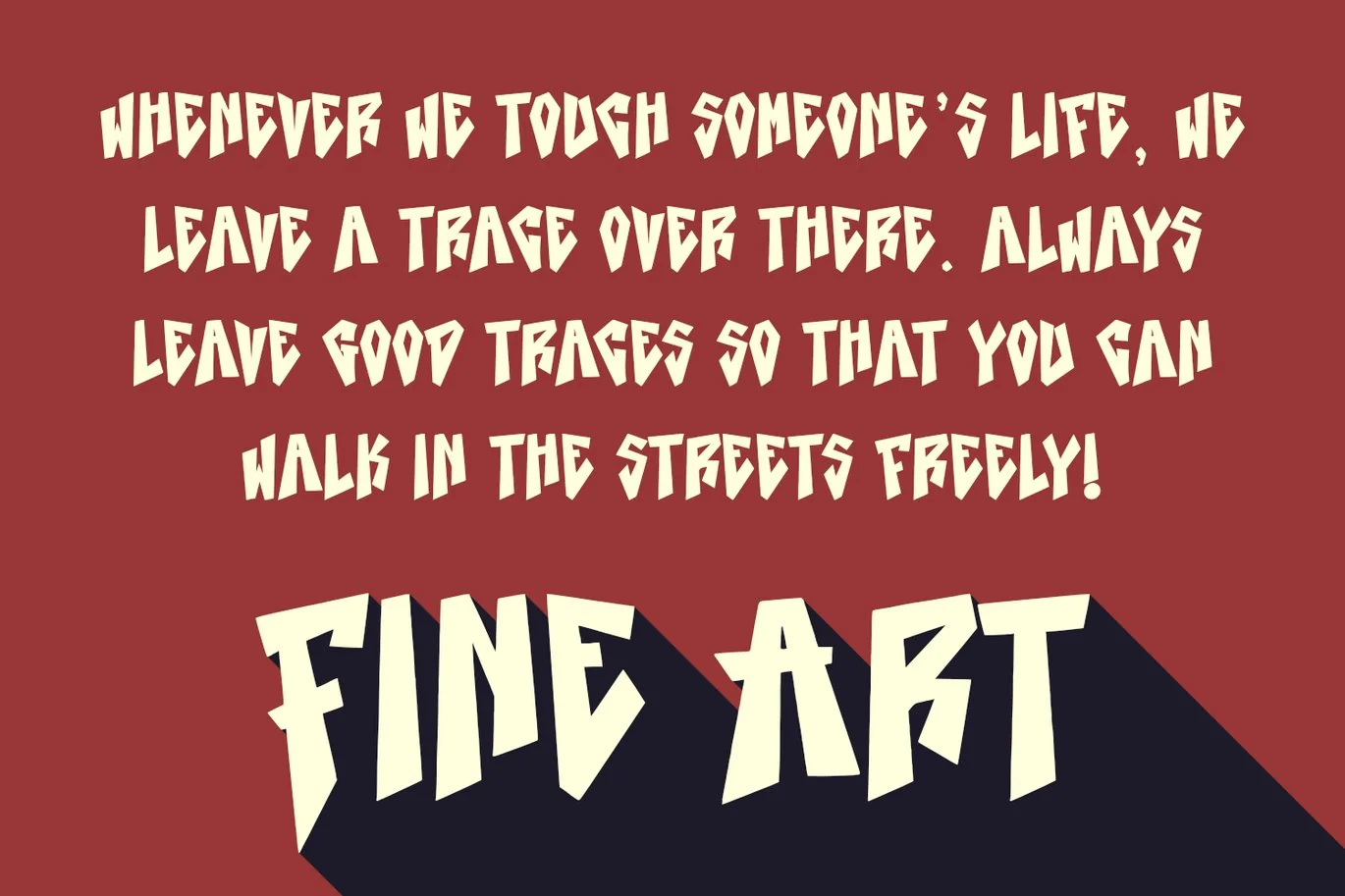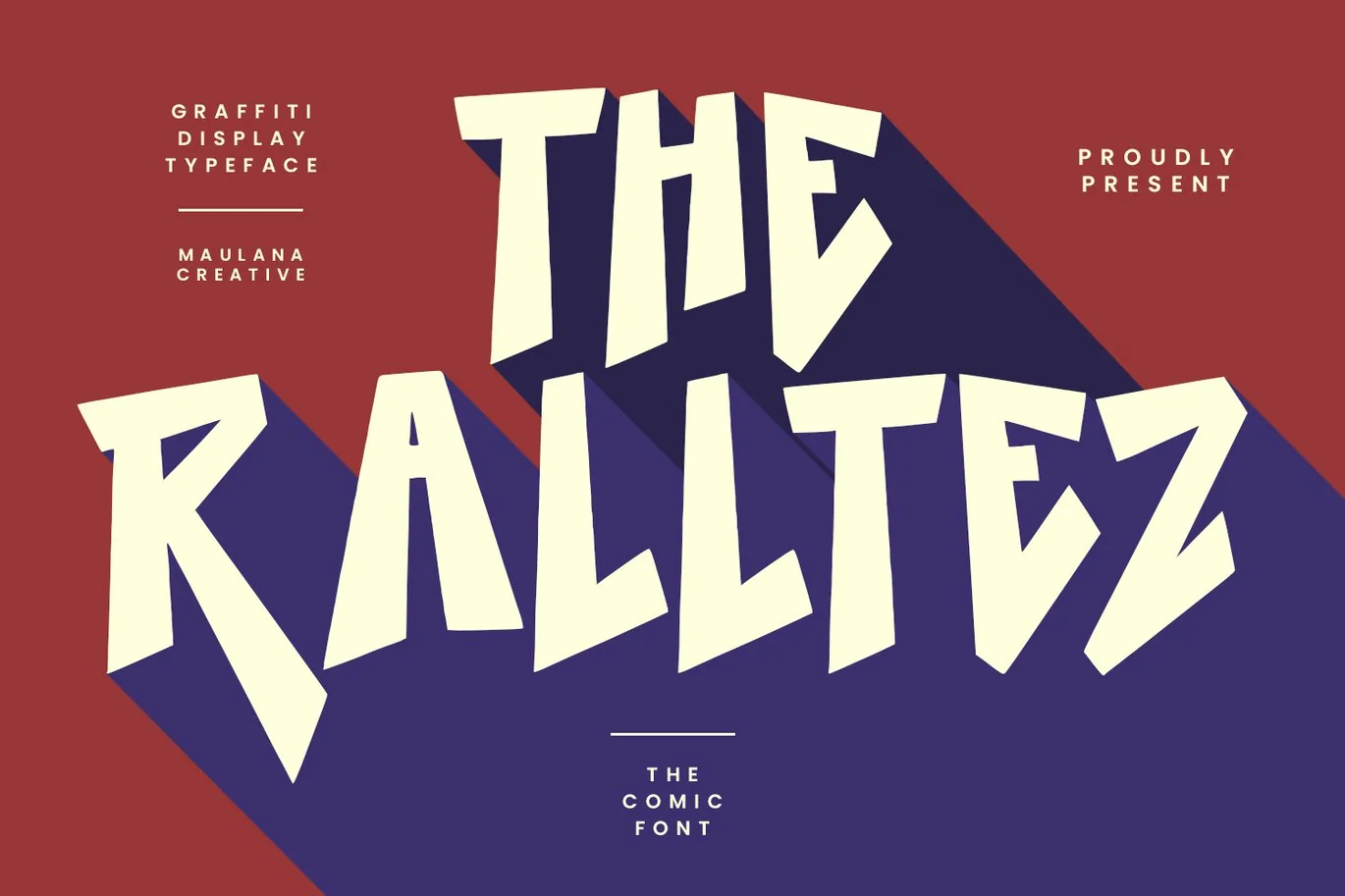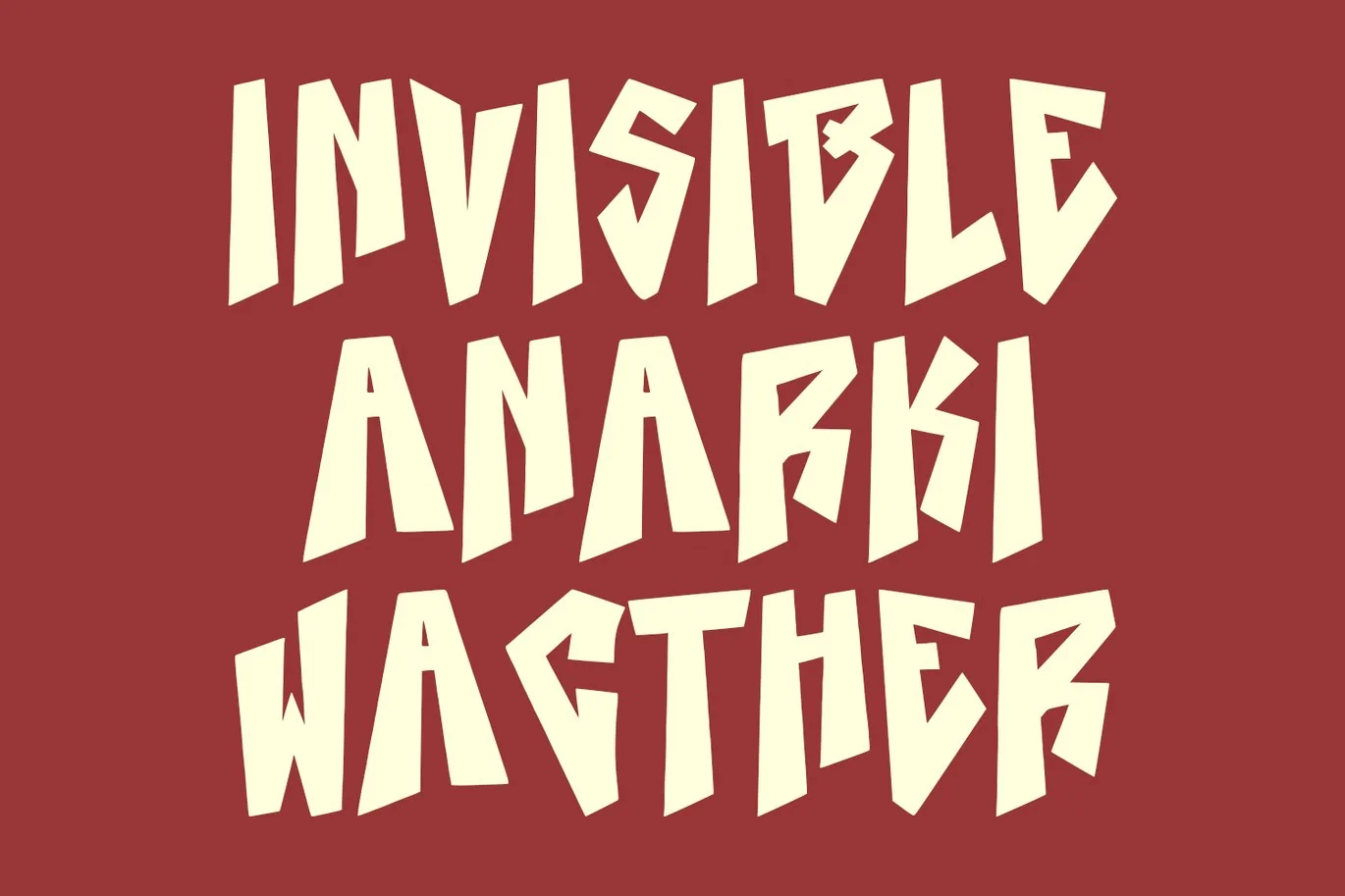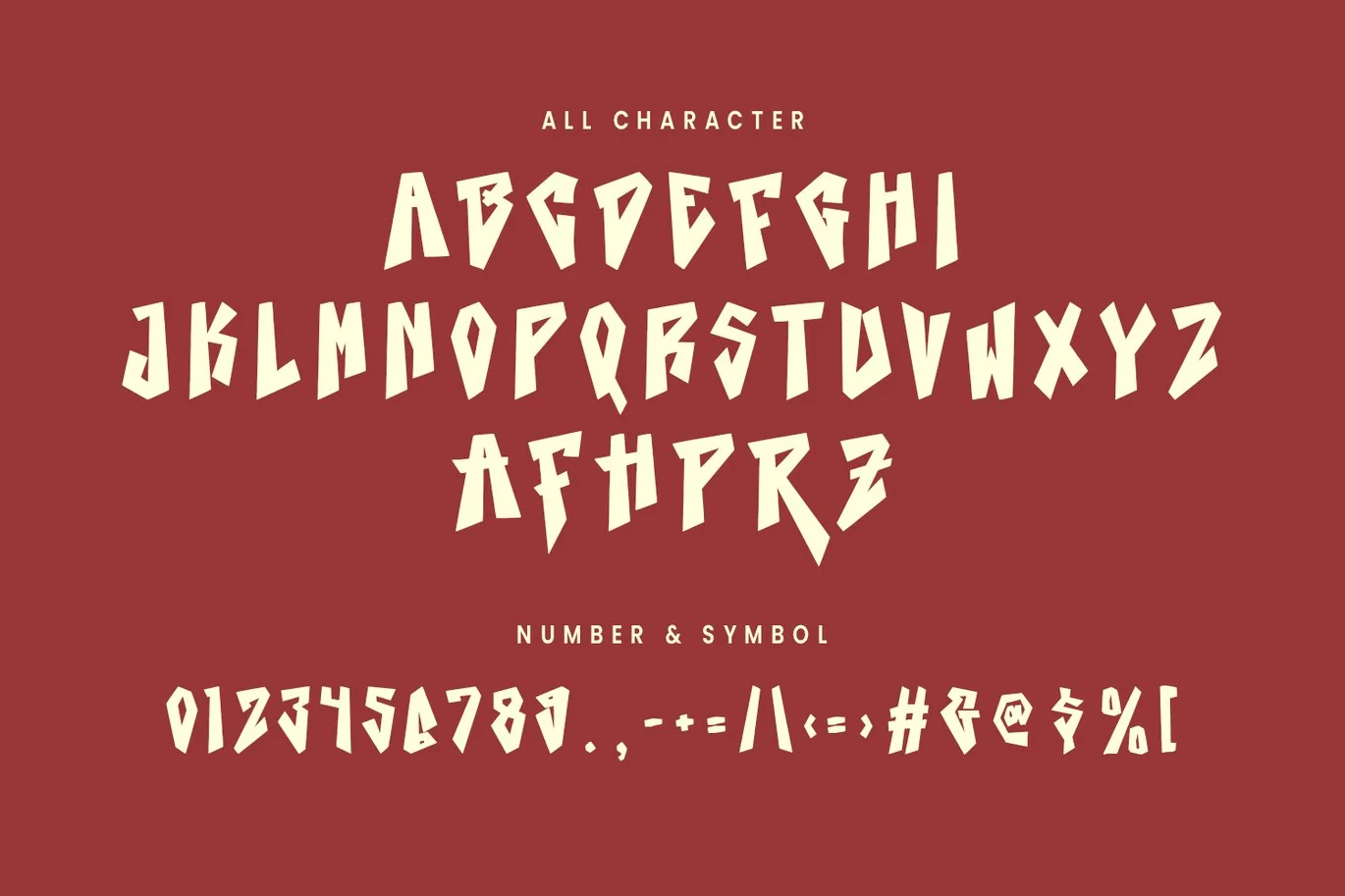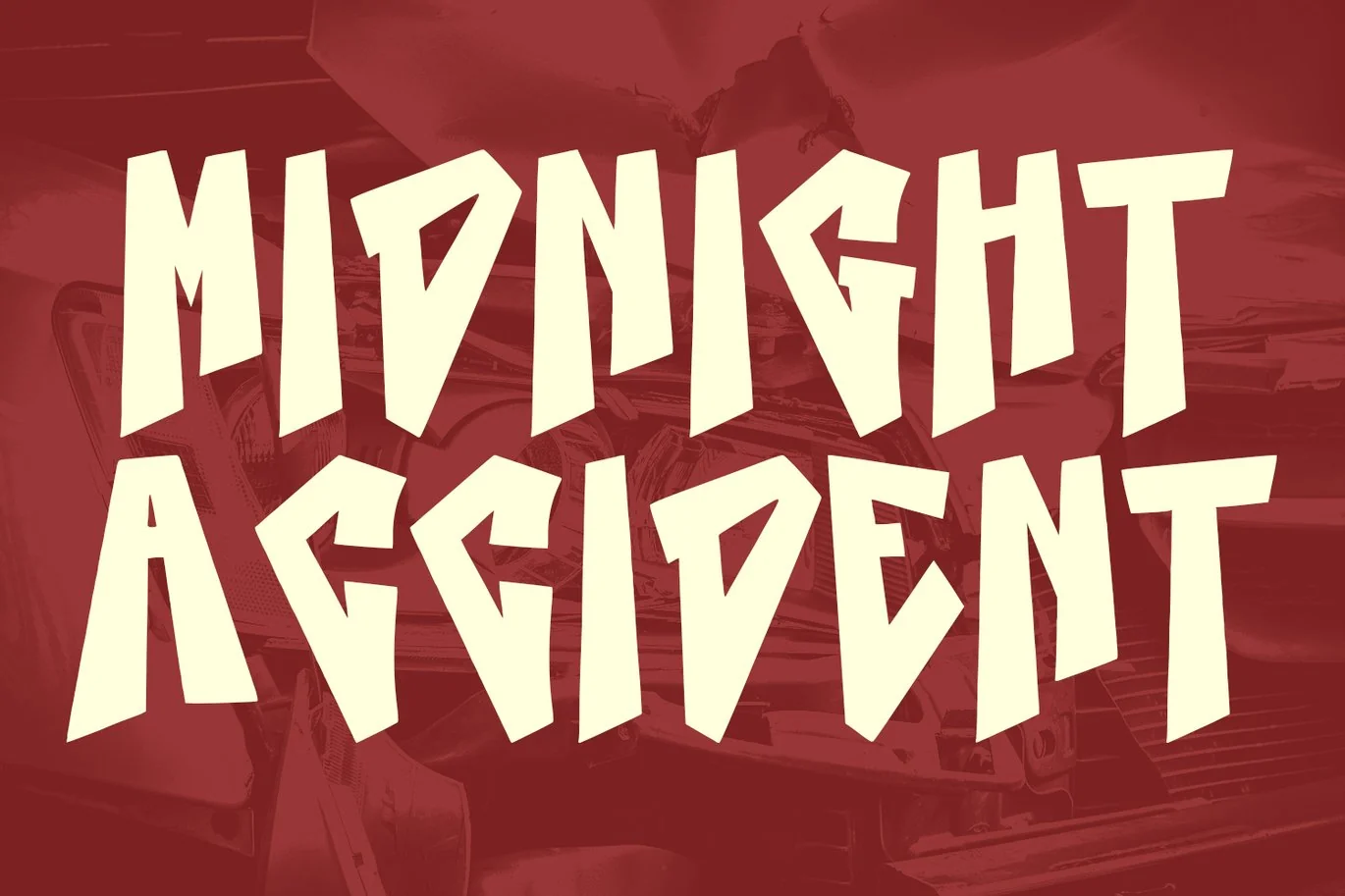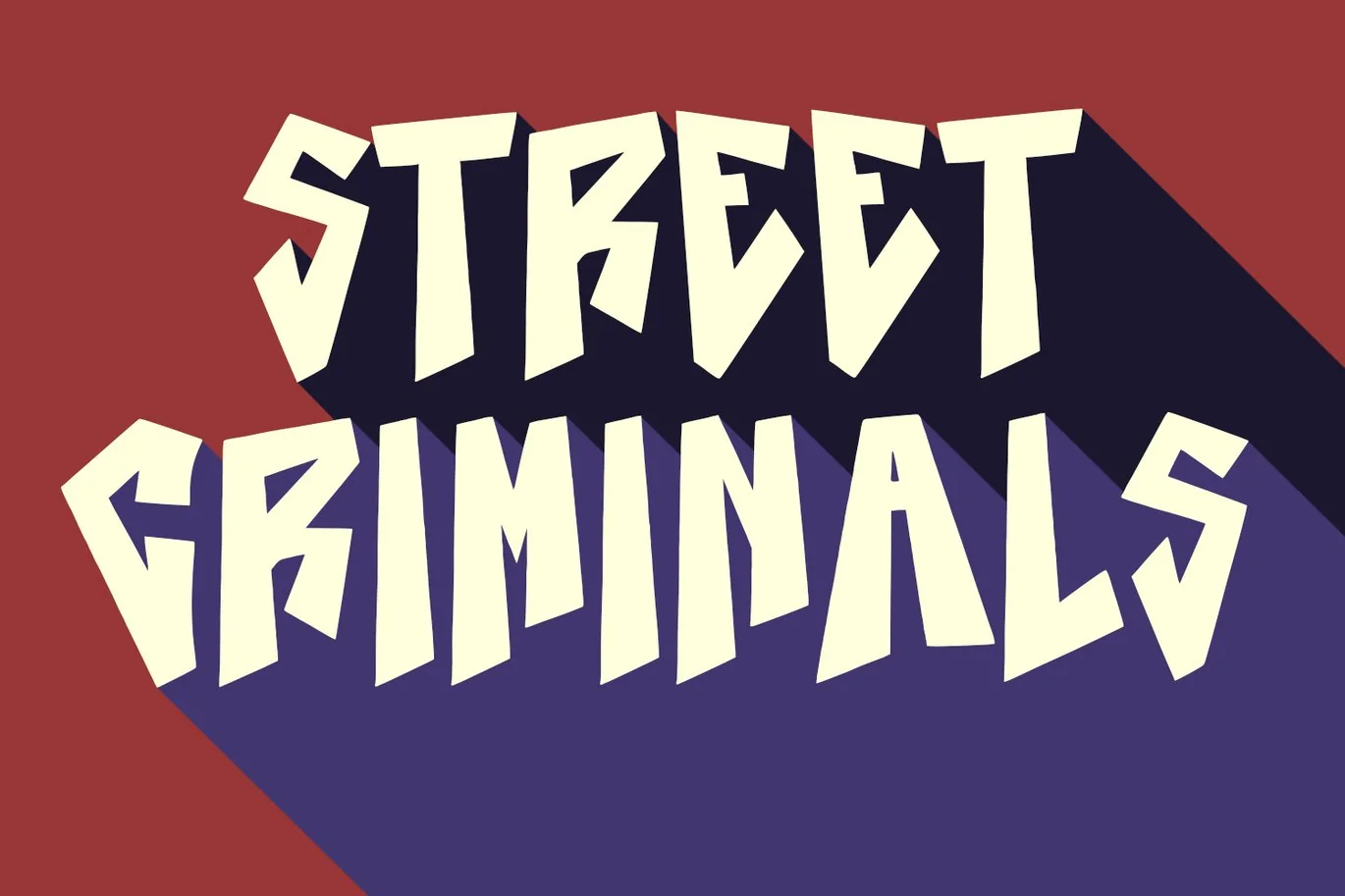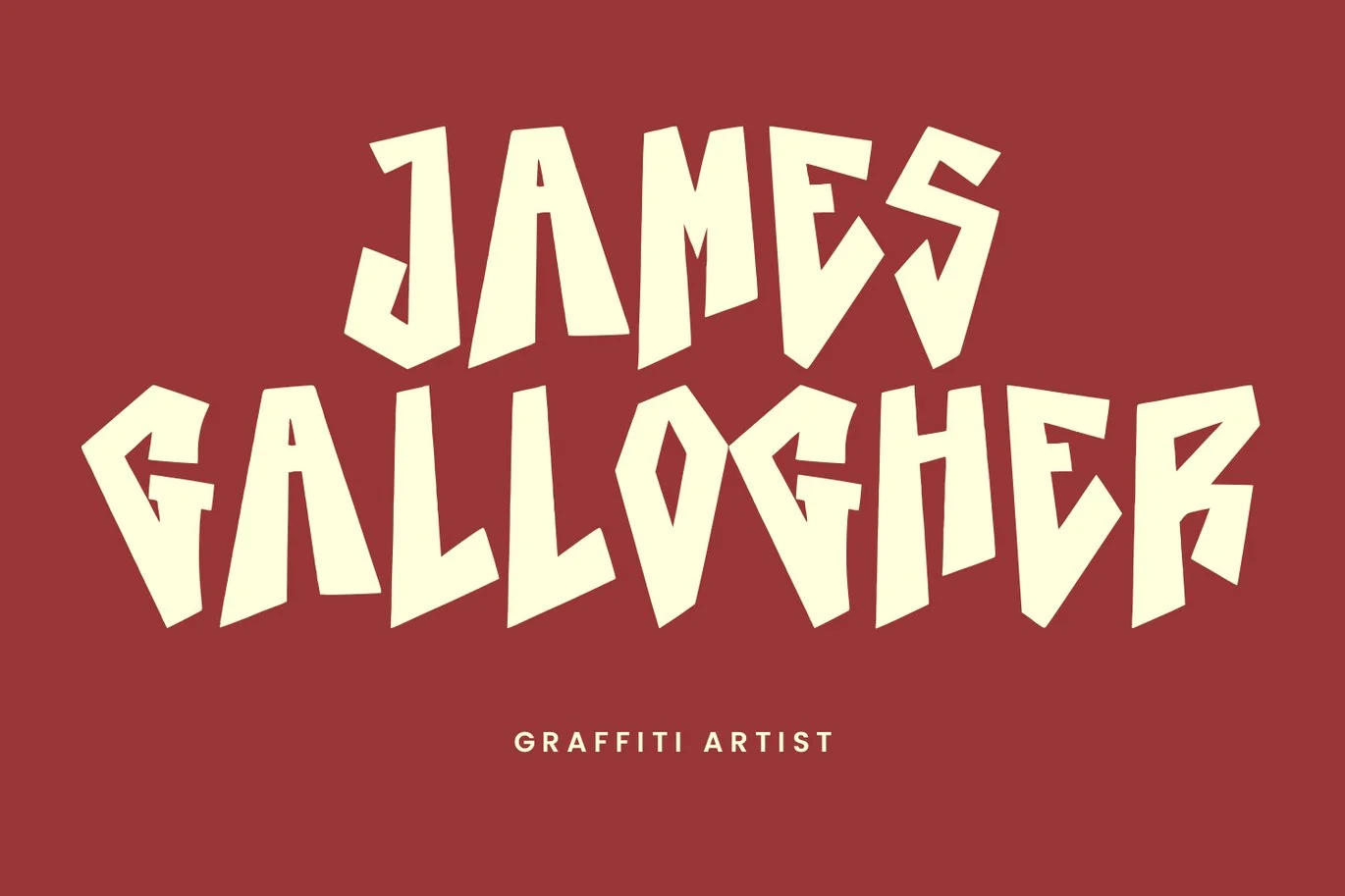
Ralltez Graffiti Comic Display Font
Ralltez graffiti comic display font. With bold tall sharp edge stroke, fun character with a bit of ligatures and alternates. To give you an extra creative work. Ralltez graffiti comic display font support multilingual more than 100+ language. This font is good for logo design, Social media, Movie Titles, Books Titles, a short text even a long text letter and good for your secondary text font with sans or serif. Make a stunning work with Ralltez graffiti comic display font.